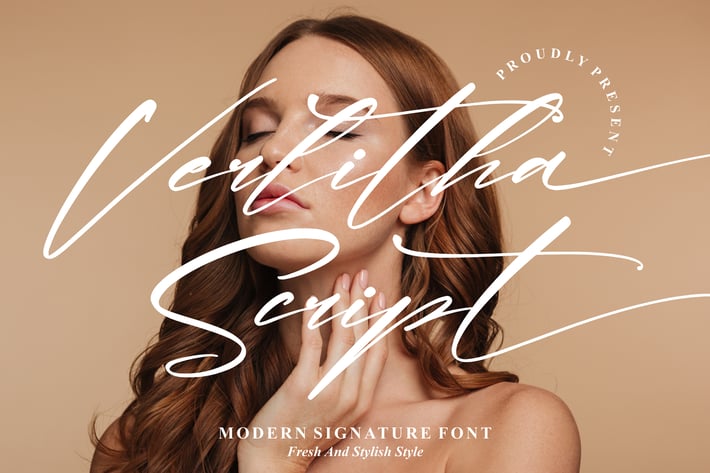
Verlitha Script Modern Signature Font
Verlitha Script Modern Signature Font delivers a smooth, luxurious handwritten signature style with graceful strokes and modern character. Crafted for premium branding, it brings a fresh and sophisticated aesthetic to every design project.
Modern handwritten signature style
Smooth, flowing script forms
Elegant high-end aesthetic
Great readability for both large and small sizes
Luxury branding & identity
Social media graphics
Photography & fashion templates
Invitations & stationery
Editorial layouts
Personal branding
A beautifully flowing signature script made to elevate your designs with effortless elegance.